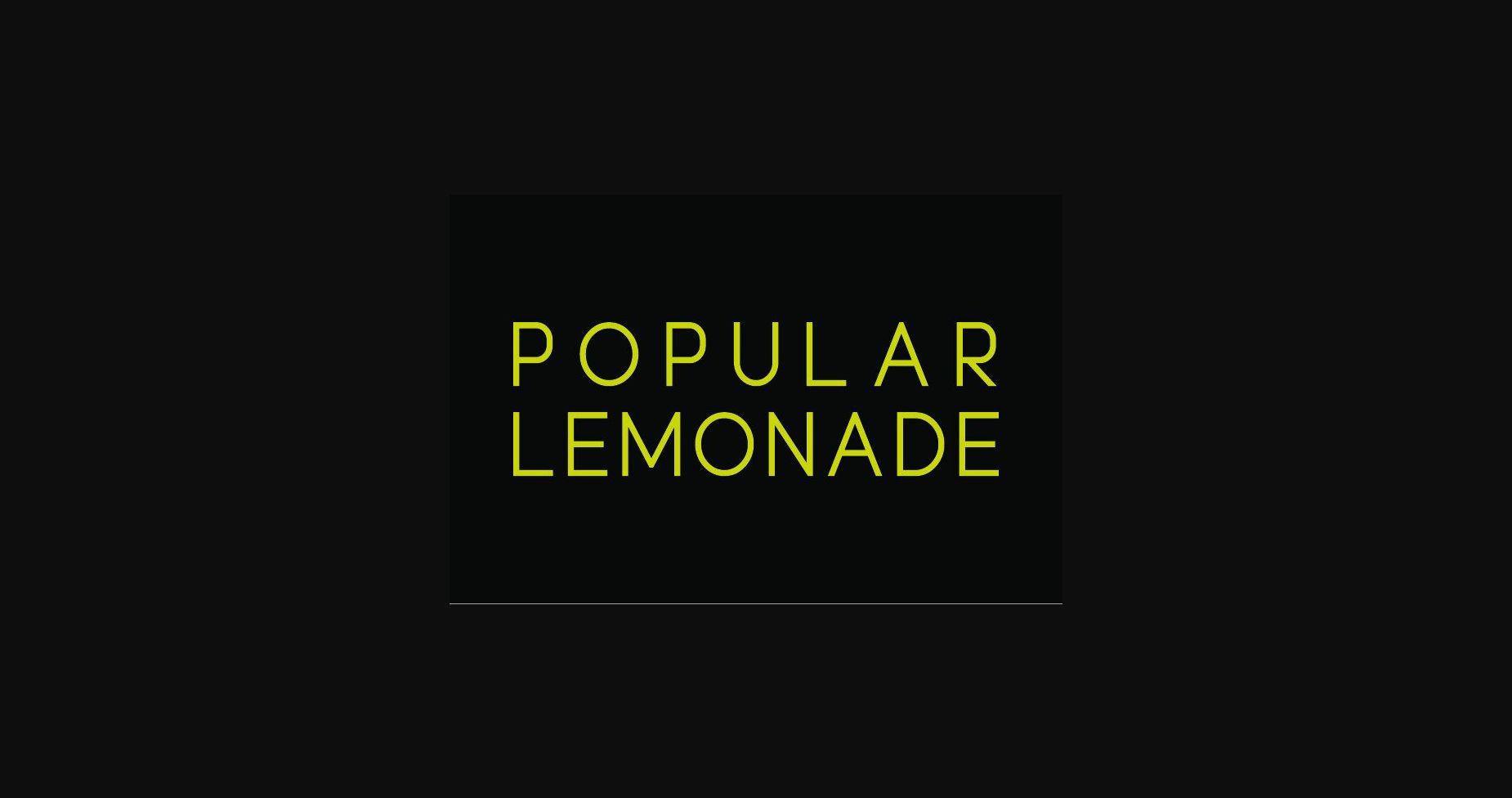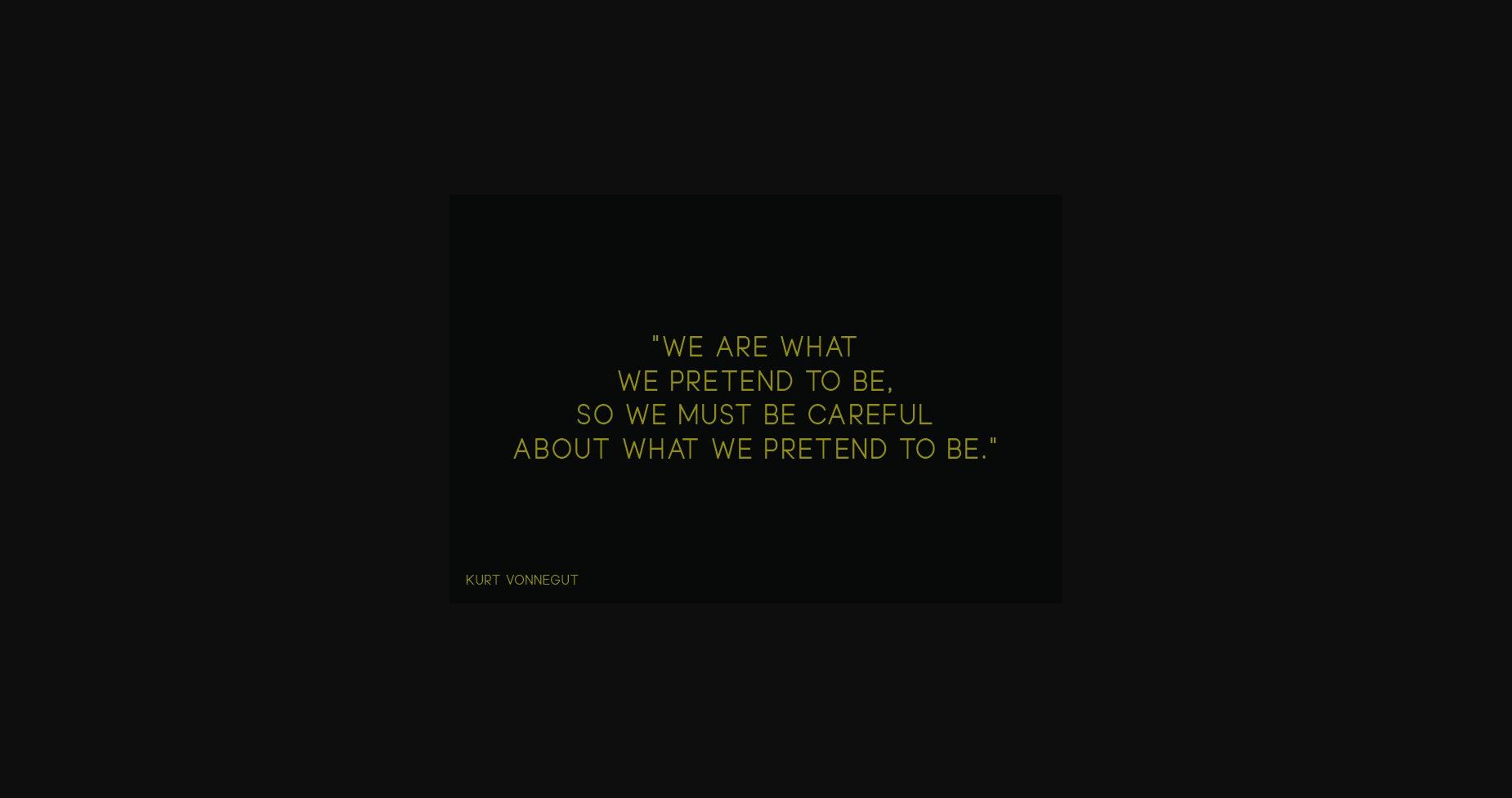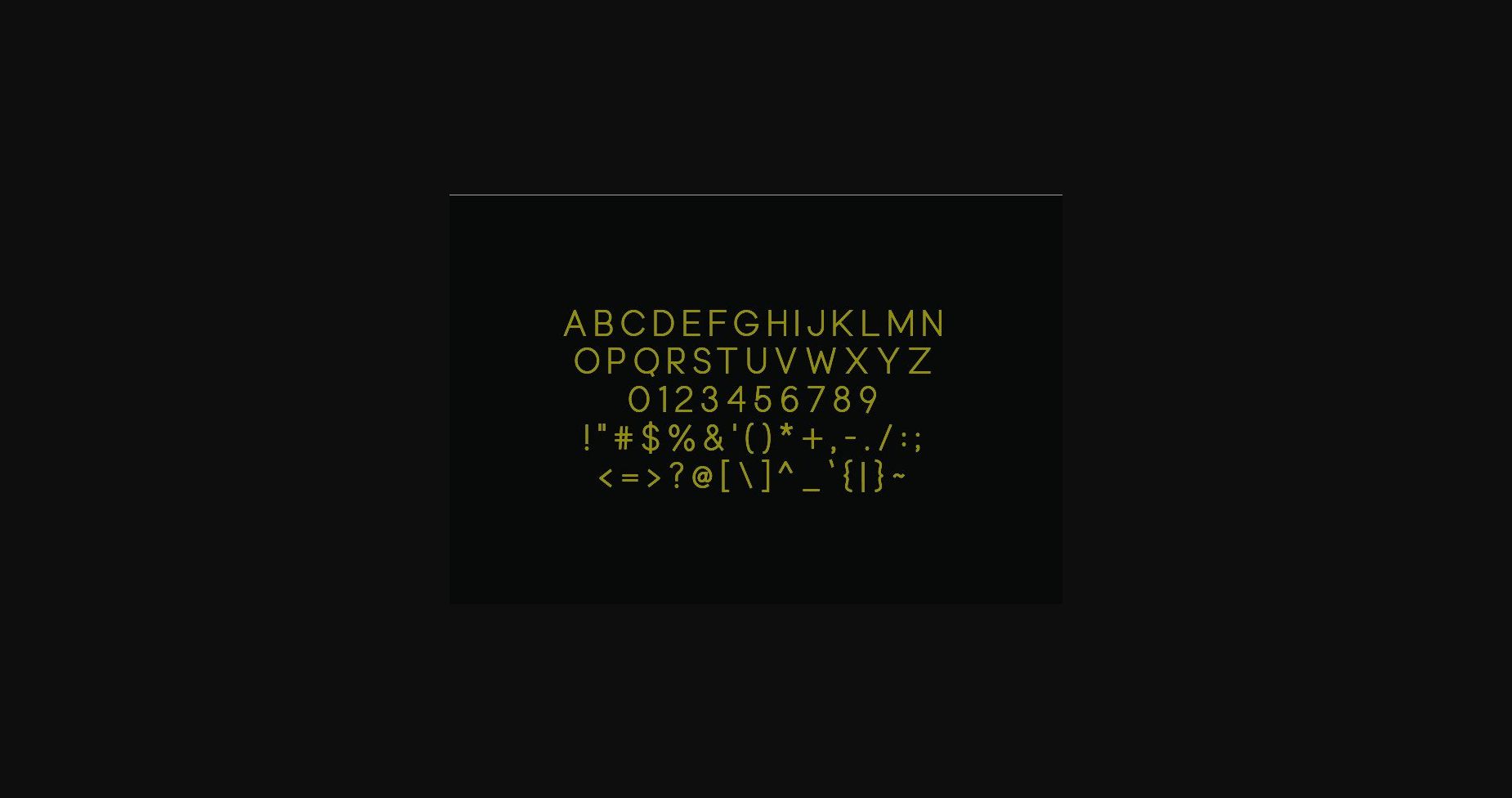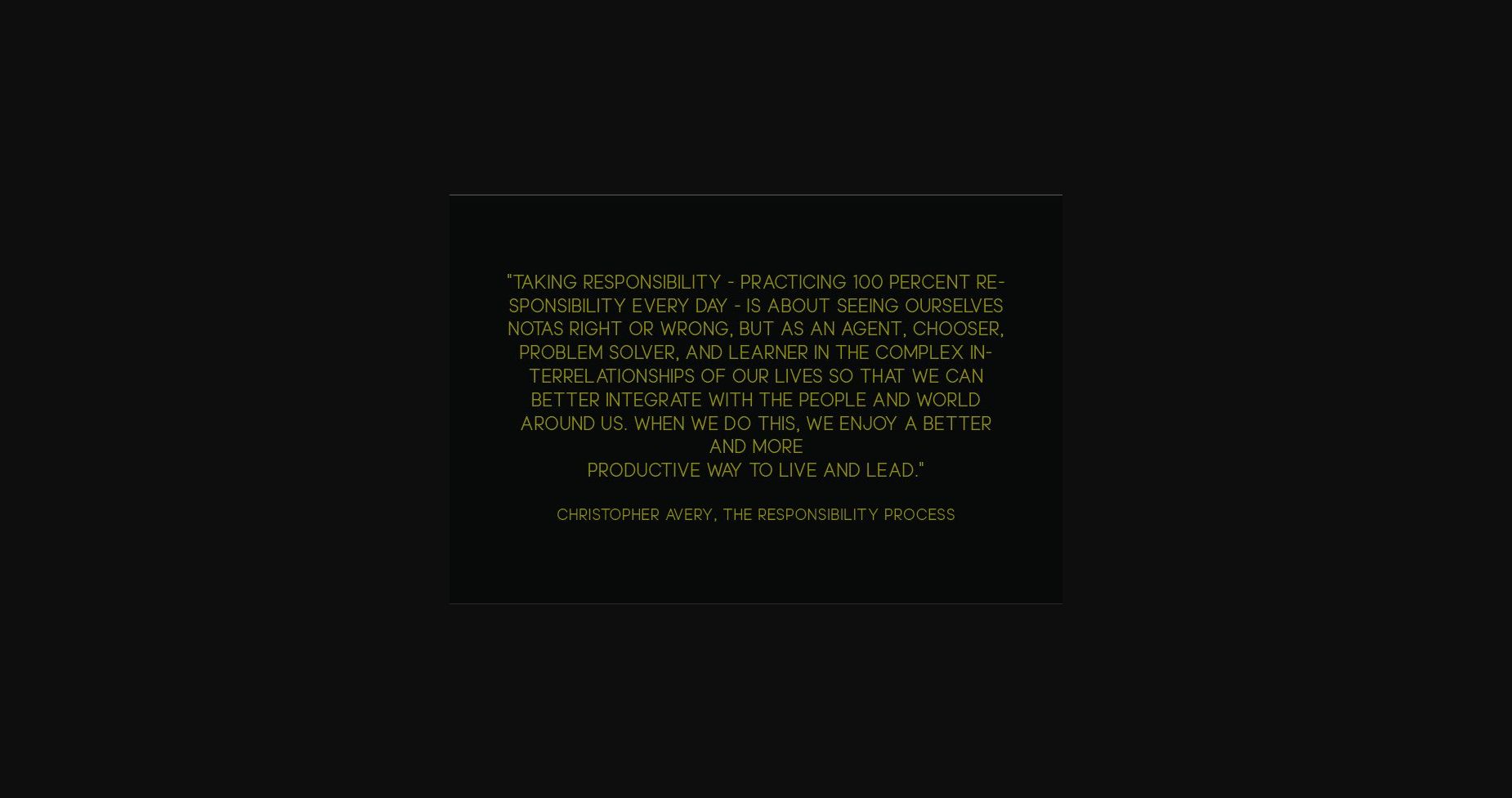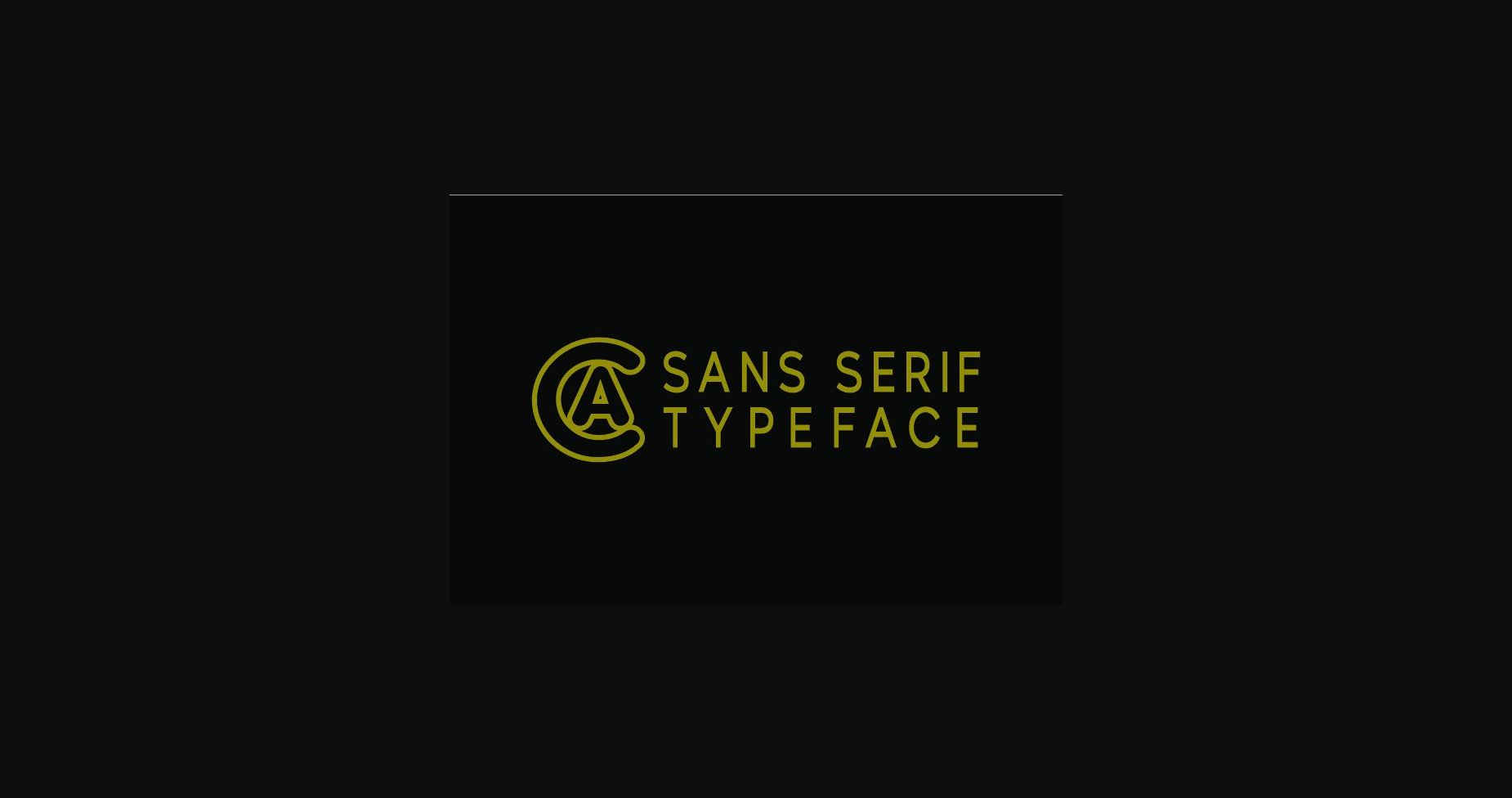
About Popular Lemonade Font
Introducing Popular Lemonade, a modern, classy sans serif typeface. A sans serif typeface that contains upper characters, numbers 0-9, and a range of punctuation and symbols. An extremely versatile font, perfect for logos, weddings, invitations, quotes, advertisements, print, magazines, and more!